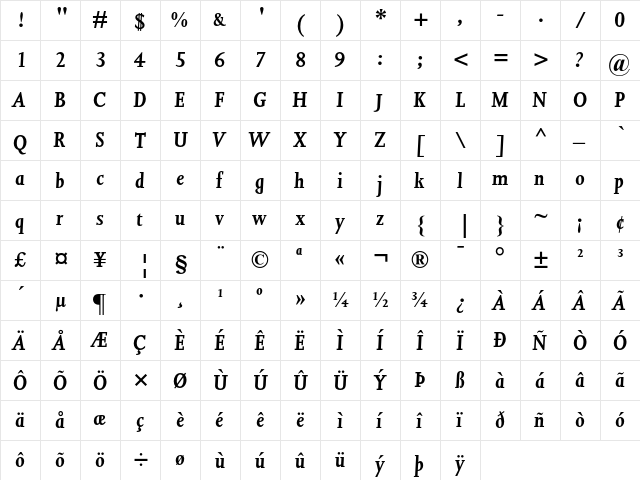
Joanna MT Bold Italic
Design Context for Joanna MT Typeface
Joanna MT is a composed and adaptable typeface that performs quietly and consistently across a wide range of design contexts. The slanted form adds forward momentum and visual energy. Its bold stroke weight gives it real presence on the page.
Pro Tip: Try Joanna MT for annotation and caption copy alongside an upright companion — the contrast in angle creates a dynamic but ordered typographic system.